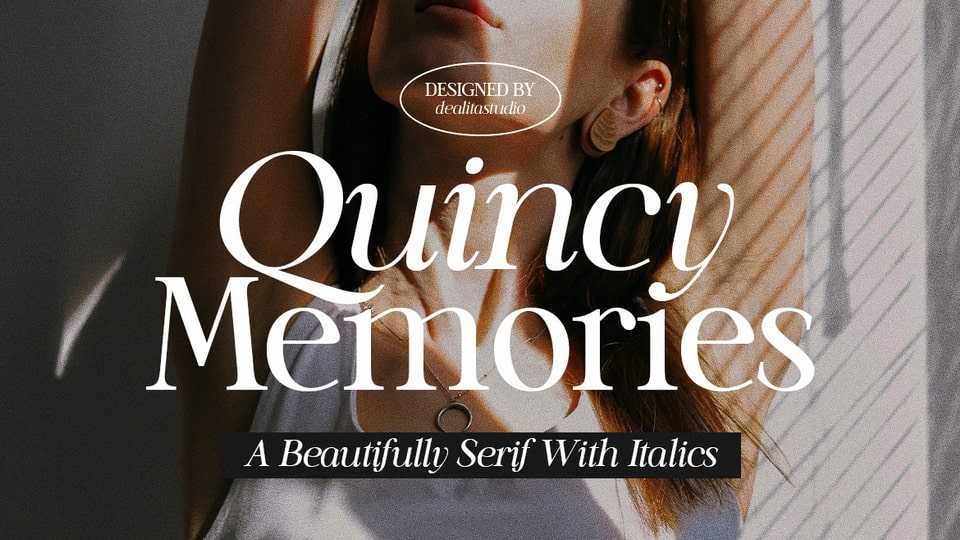
Download Quincy Serif font, a beautiful serif typeface, ideally to be applied to other various formal forms such as invitations, labels, logos, magazines, books and so on.
Designer: dealitastudio